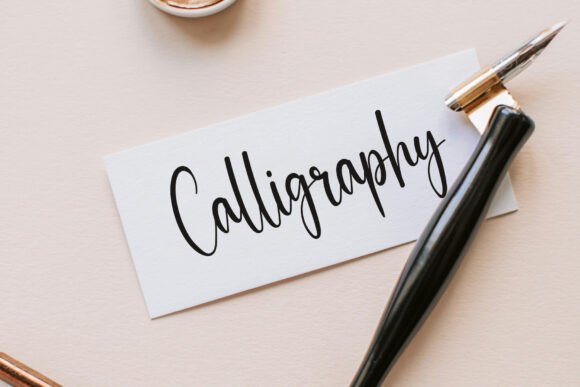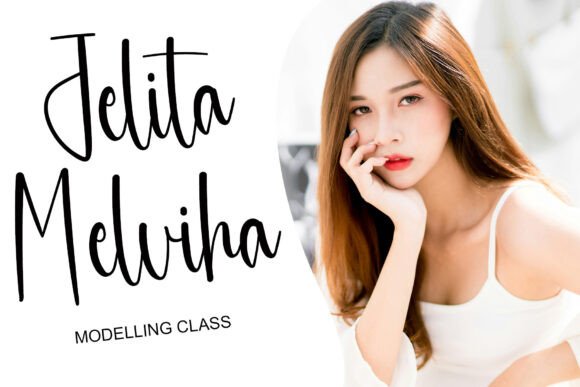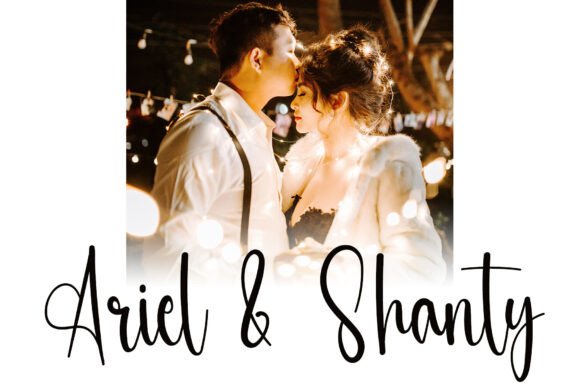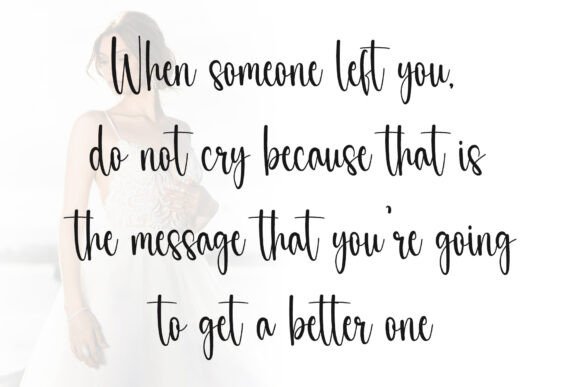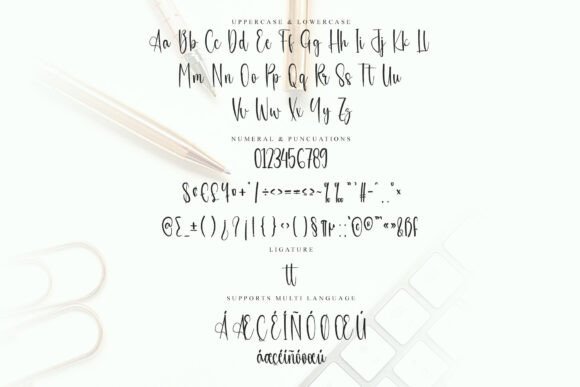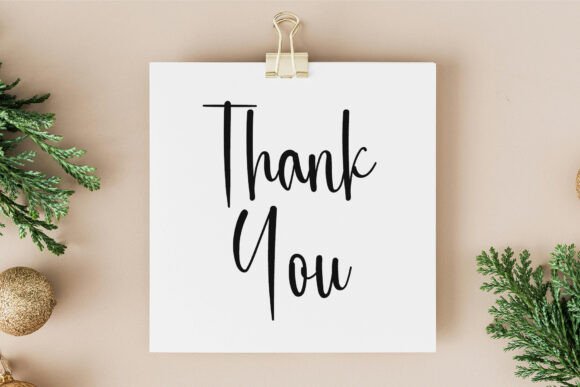
Introducing Backlink Font: Elevate Your Designs with Elegance and Personality
Are you a designer or crafty enthusiast looking for a font that exudes sophistication and modernity? Look no further than Backlink Font, a beautifully crafted display handwriting font that blends elegance with a modern, artistic touch. In this article, we’ll dive into the world of Backlink Font, exploring its unique features, benefits, and uses, as well as provide tips on how to make the most of this stunning font.
The Story Behind Backlink Font
Backlink Font is a meticulously designed font that boasts flowing strokes and well-balanced curves, creating a sophisticated yet approachable feel. Its elegant design makes it perfect for those who want to add a touch of class and personality to their designs. Whether you’re working on a branding project, creating a stunning poster, or crafting a beautiful wedding invitation, Backlink Font is sure to impress.
Key Features of Backlink Font
- Elegant and Modern Design: Backlink Font features a unique blend of traditional and modern elements, making it perfect for designs that require a touch of sophistication.
- Flowing Strokes and Curves: The font’s flowing strokes and well-balanced curves create a beautiful, handwriting-like feel that’s both elegant and approachable.
- Highly Versatile: Backlink Font is perfect for a wide range of design projects, from branding and advertising to packaging and digital media.
- Easy to Read: Despite its elegant design, Backlink Font is highly legible, making it perfect for use in body text as well as headlines.
Benefits of Using Backlink Font
So why choose Backlink Font for your next design project? Here are just a few benefits of using this stunning font:
- Adds a Touch of Elegance: Backlink Font is perfect for designers who want to add a touch of sophistication and elegance to their designs.
- Stand Out from the Crowd: With its unique design and flowing strokes, Backlink Font is sure to make your designs stand out from the crowd.
- Perfect for Branding and Advertising: Backlink Font is highly versatile, making it perfect for use in branding, advertising, and marketing materials.
Tips for Using Backlink Font
To get the most out of Backlink Font, here are a few tips to keep in mind:
- Use it as a Headline Font: Backlink Font is perfect for use in headlines and titles, where its elegant design can really shine.
- Pair it with a Simple Font: For body text, pair Backlink Font with a simple, easy-to-read font to create a beautiful contrast.
- Experiment with Colors and Textures: Backlink Font looks stunning in a variety of colors and textures, so don’t be afraid to experiment and find the perfect combination for your design.
In conclusion, Backlink Font is a beautifully crafted display handwriting font that blends elegance with a modern, artistic touch. Its flowing strokes and well-balanced curves create a sophisticated yet approachable feel, making it the perfect font choice for designers and crafty enthusiasts who want to add a touch of class and personality to their designs. With its highly versatile design and ease of use, Backlink Font is sure to become a staple in any designer’s toolkit.